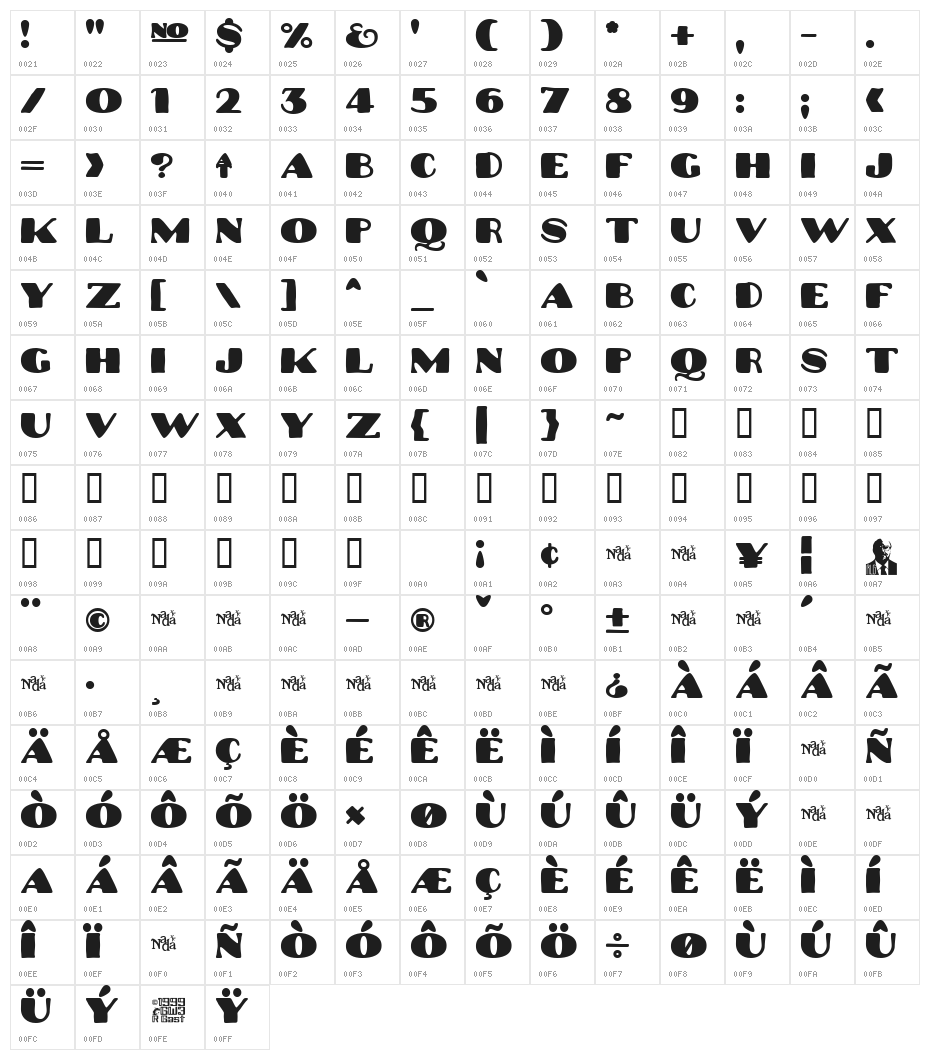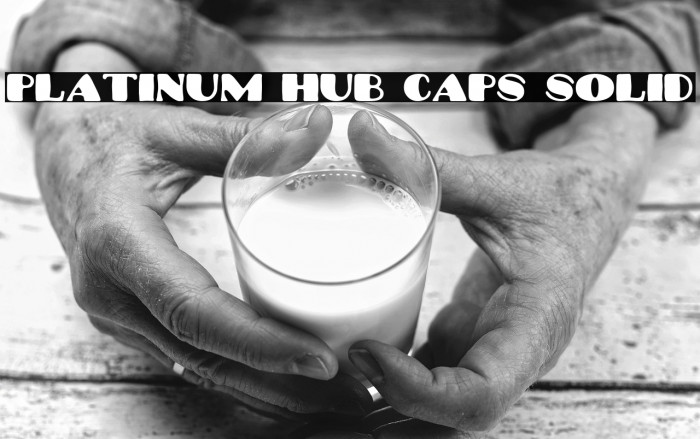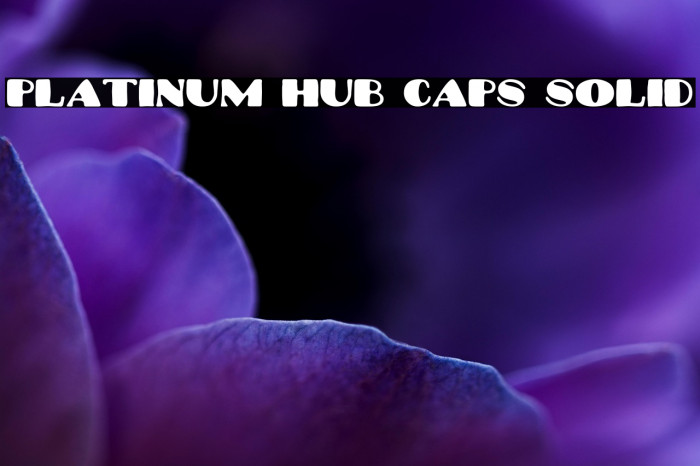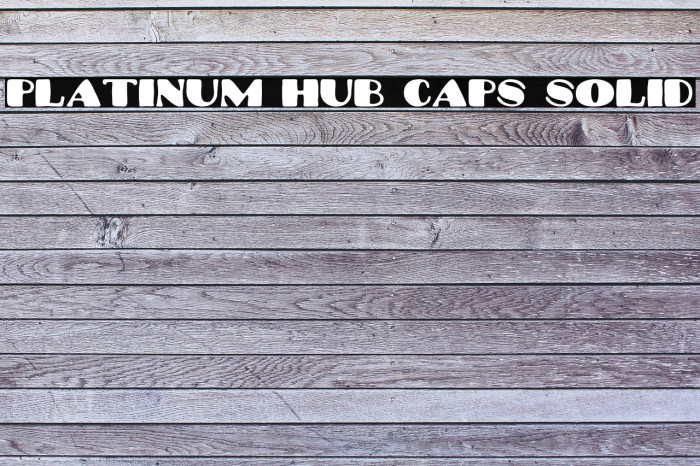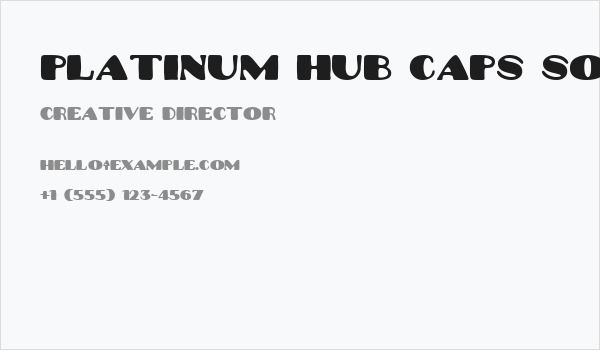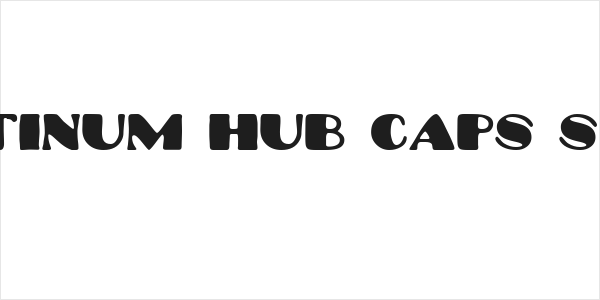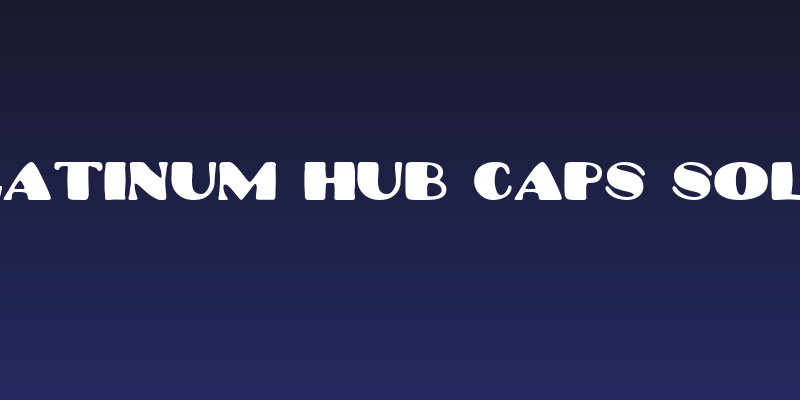
Platinum Hub Caps Solid Font
Platinum Hub Caps Solid Description
This font features a bold and decorative style with unique, playful elements. The uppercase letters are characterized by thick, rounded strokes and distinctive flourishes, particularly noticeable in letters like 'Q' and 'R'. The lowercase letters maintain the same boldness, with some characters incorporating whimsical curves and loops. The numerals are equally bold, ensuring consistency across the character set. Special characters are creatively designed, adding to the font's overall decorative appeal. This font is ideal for projects that require a strong visual impact and a touch of creativity.